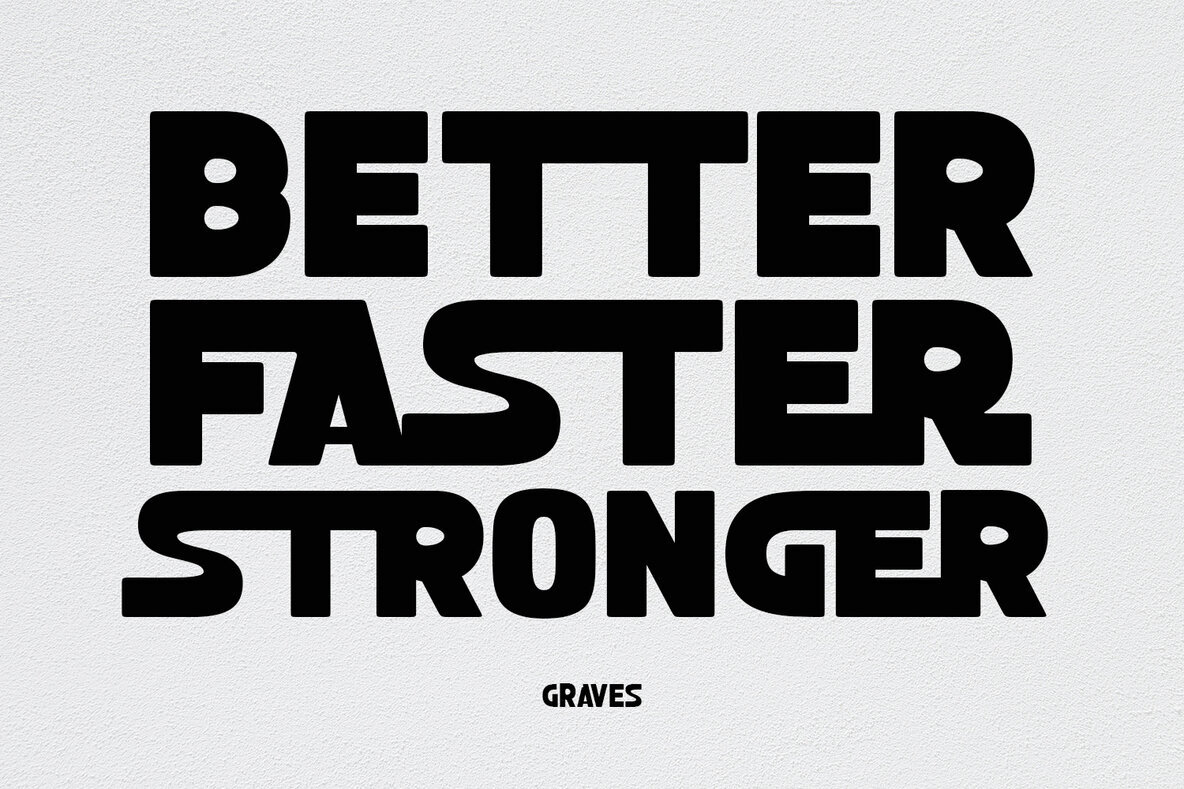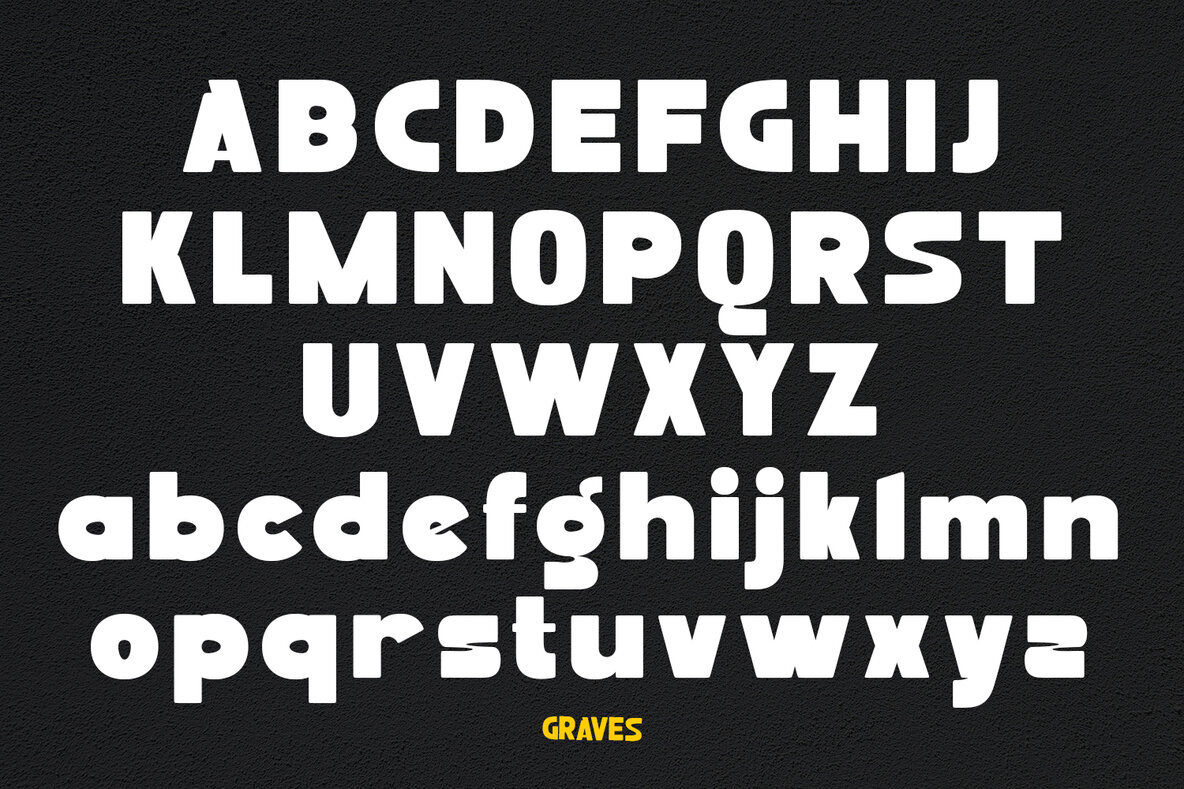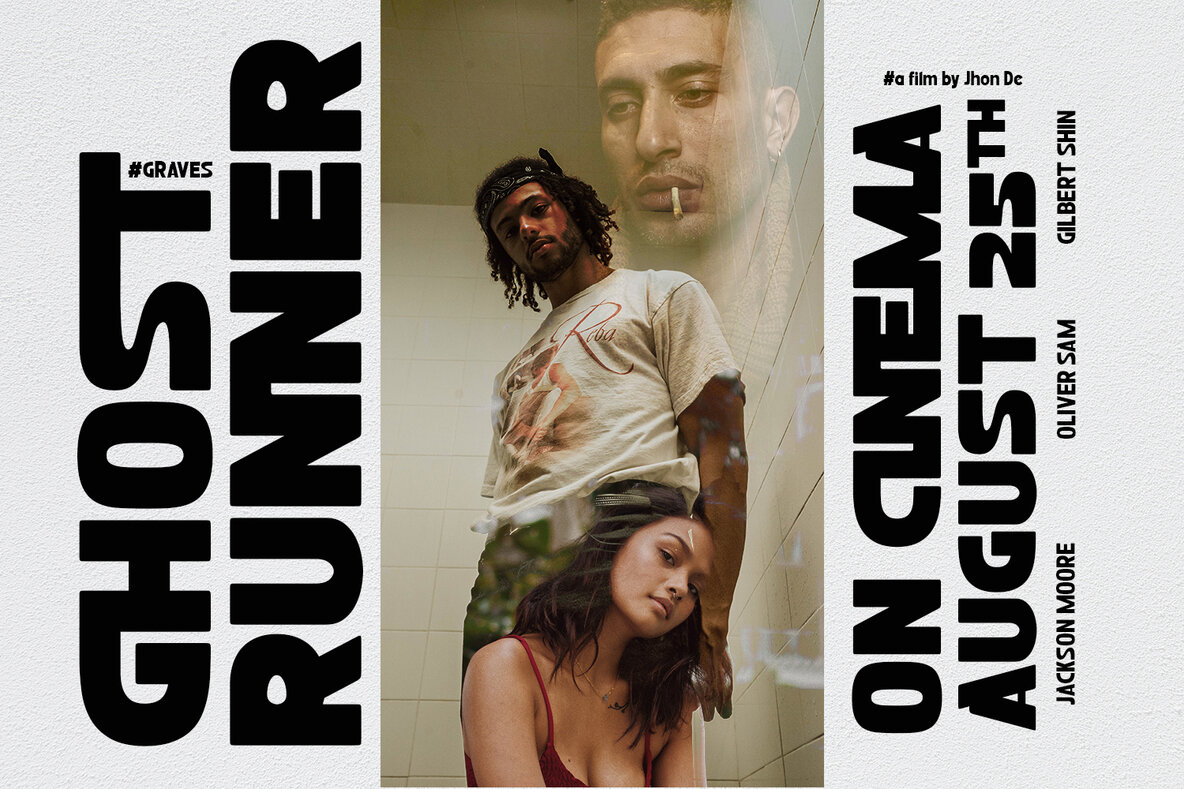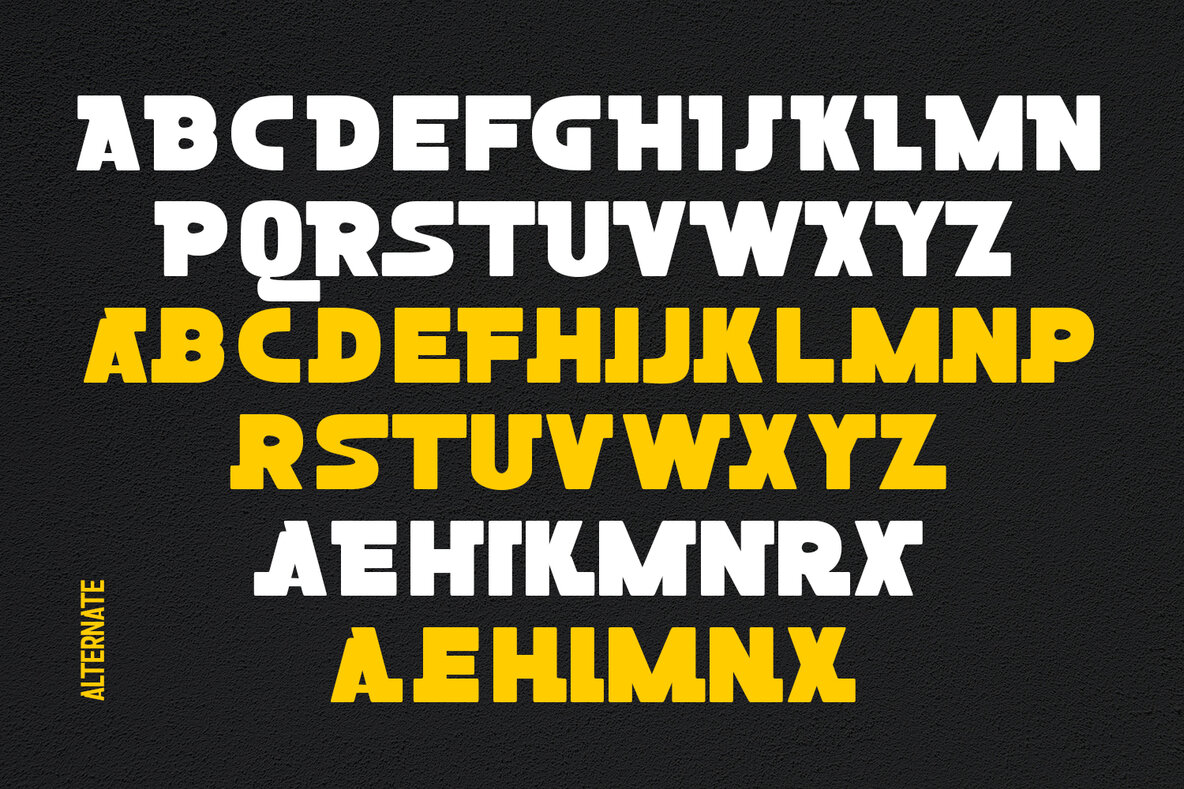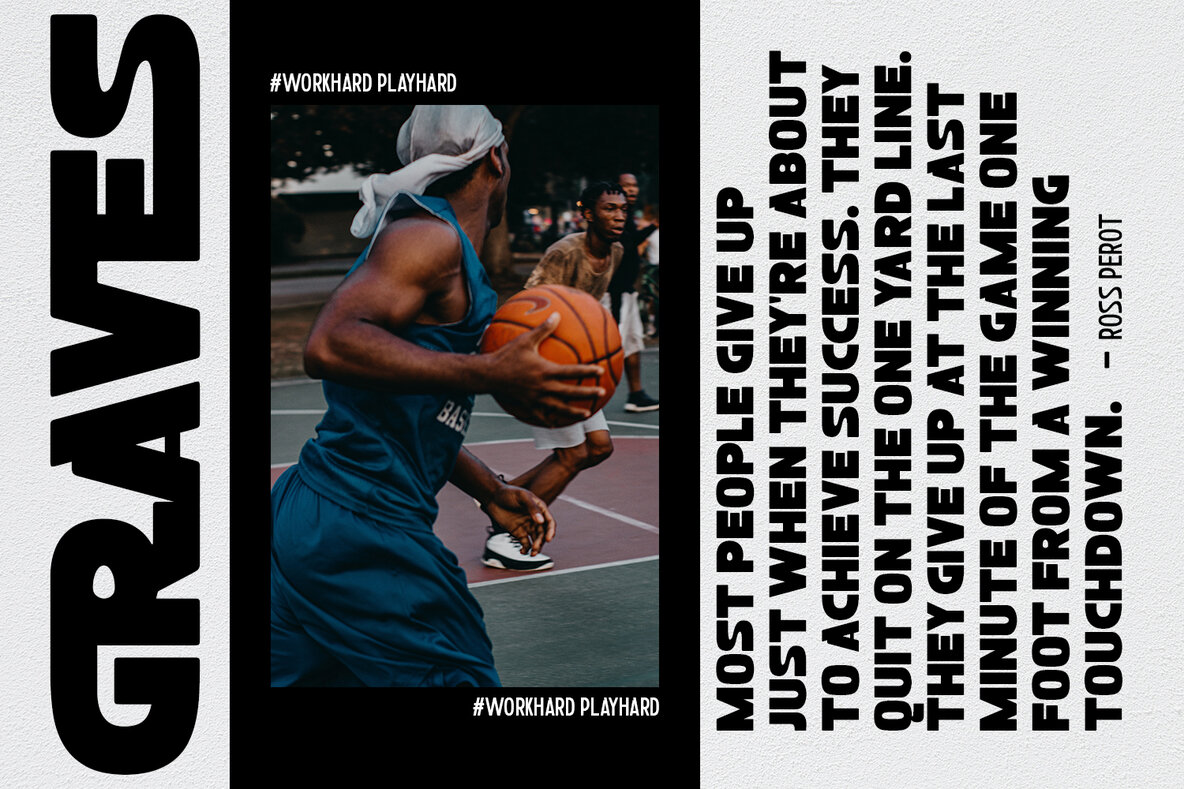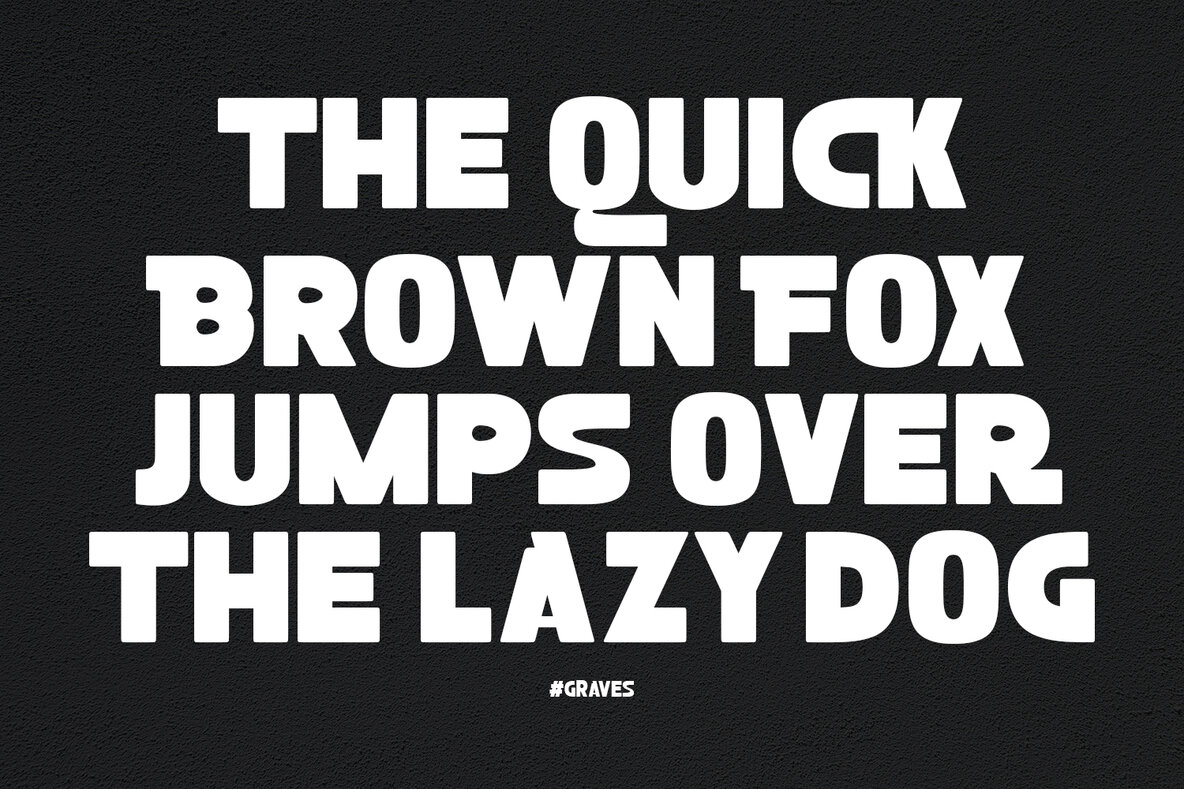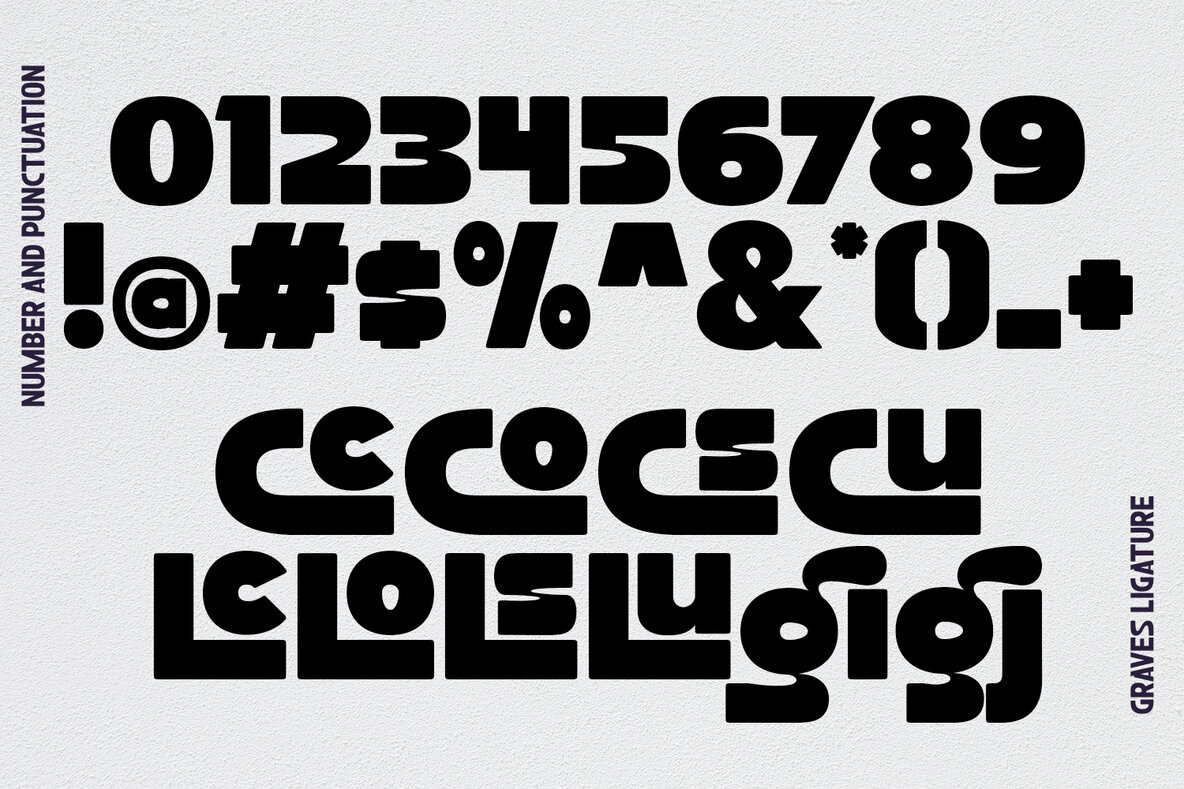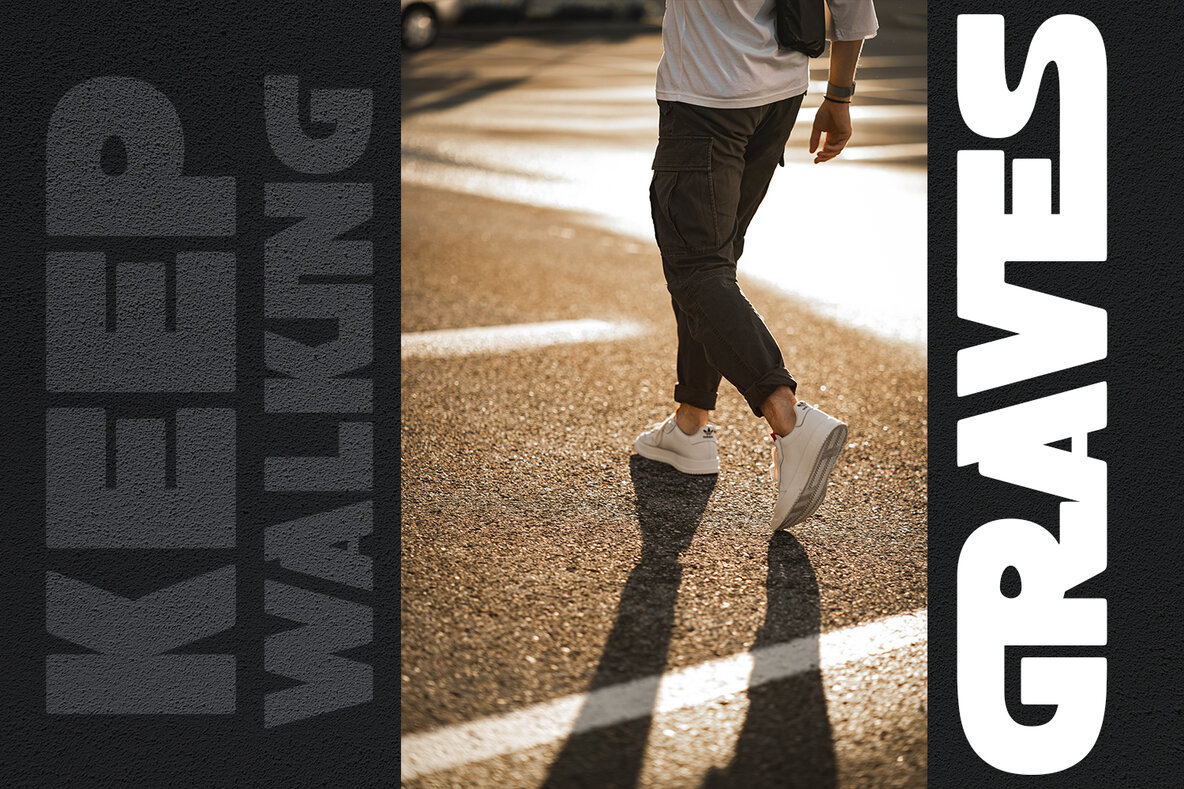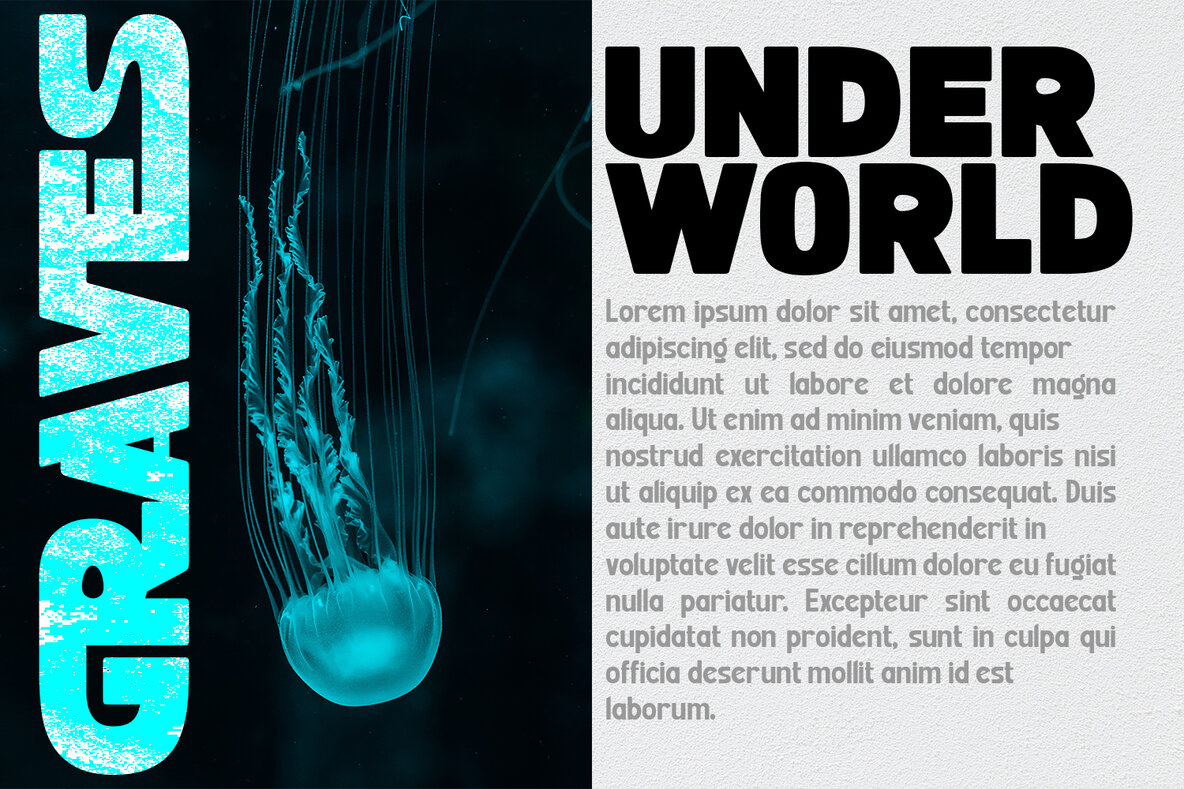
Graves Font
Graves is a display sans family with much special alternative glyphs and ligatures comes with 9 weight to get more stunning. Use this font family for any branding, product packaging, invitation, quotes, t-shirt, label, poster, logo etc.